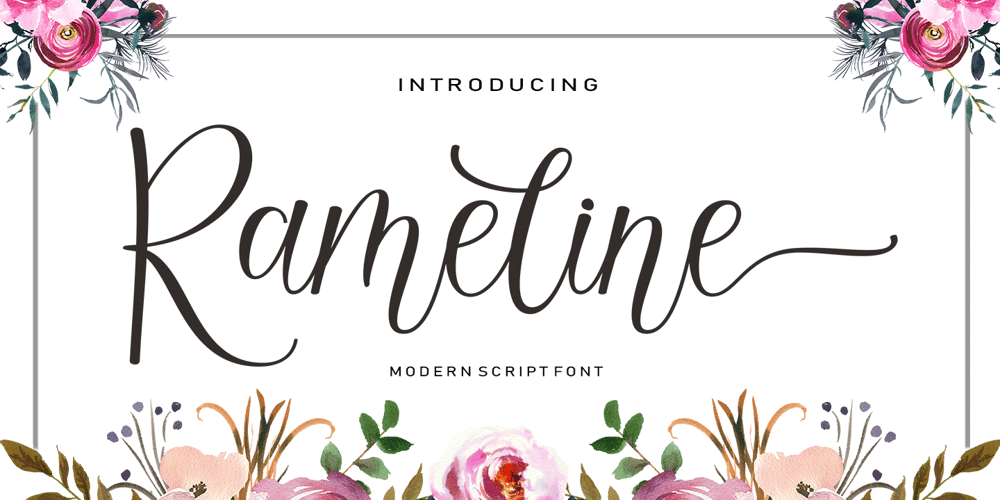
Rameline Script Font Family was designed by Sidiq Fahmi and published by Rotterlab Studio. Rameline Script contains 1 styles and family package options. Rameline Script is a modern script font, elegant, tasty flow and playful with swashes. Features OpenType feature, stylistic alternates, ligatures and International support for most Western Languages. You need a program that supports OpenType features such as Adobe Illustrator CS, Adobe Photoshop CC, Adobe Indesign.Perfect to creating modern designs like ads, sales, logos, branding, posters, social media text overlays and wedding invitation. All lowercase letters include alternates, beginning & end swashes, that makes the font look fabulous!These are all coded with PUA Unicode. Mac users can use Font Book and Windows users can use Character Map to view and copy any of the extra characters to paste into your favourite text editor/app.How to access all alternative characters:- https://www.youtube.com/watch?v=Go9vacoYmBw – https://www.youtube.com/watch?v=XzwjMkbB-wQ- https://www.youtube.com/watch?v=x1A_ilsBsGs – https://www.youtube.com/watch?v=xFlMwARHusYThanks and Happy Creating 🙂